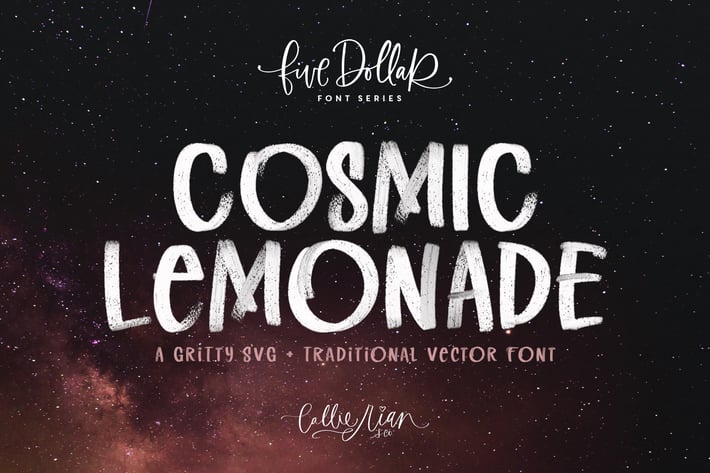
Cosmic Lemonade SVG + Vector Font
Grab yourself some Cosmic Lemonade and have fun designing with this gritty, transparent SVG, and vector sidekick. This all-caps, handwritten typeface works beautifully on magazines, for headlines, merch and quotes. Spice up your instagram or create lovely packaging with this dreamy type.
- Cosmic Lemonade SVG (OTF) - A transparent, bitmat typeface with beautiful transparent strokes.
- Cosmic Lemonade Vector (OTF) - A gritty vector version to supplement the SVG.